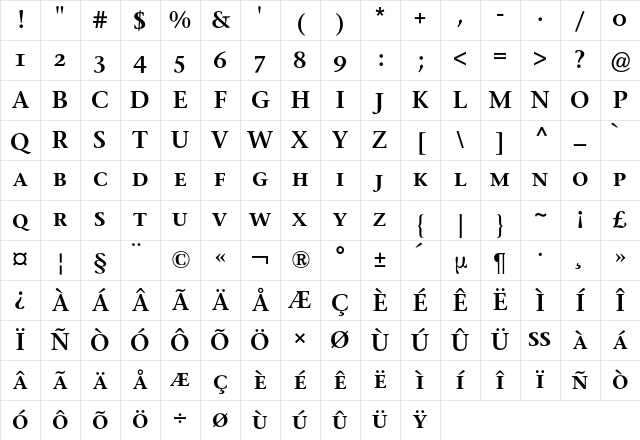
Stone Serif Expert BQ Regular
Complete Stone Serif Expert BQ Regular glyph index. Displaying only characters natively supported by Stone Serif Expert BQ Regular font.
Design Context for Stone Serif Expert BQ
Stone Serif Expert BQ carries the refined structure of traditional serif typography, with bracketed terminals and considered proportions that communicate credibility and craft.
Pro Tip: Use Stone Serif Expert BQ for editorial body copy and considered headline work. Pair with a neutral sans for UI elements or captions to create a classic hierarchy.